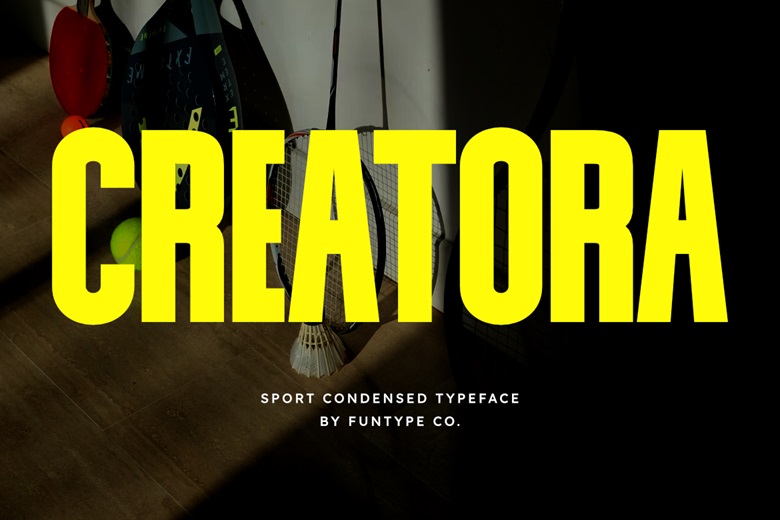
Creatora Font
Creatora is a bold and powerful sport condensed display typeface created in an attempt to create a sense of speed, energy, and competitiveness. Its close, tall typefaces and dense lines provide it with a commanding, robust look, which makes it the final font when it comes to sportswear, poster titles, video titles, and motion headlines.
Creatora is designed to suit the needs of designers that require a powerful, contemporary and vigorous font to create a splash in the sports, e-sports and action-oriented designs environment. It is an ideal typeface to use in branding where one needs to be confident and move.
Creatora Sans Serif Font